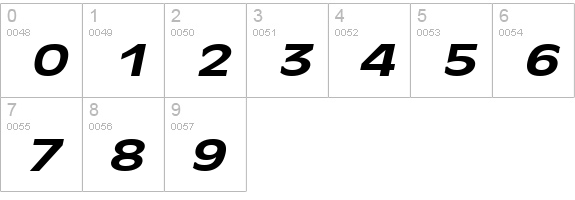
Antiqua 101 Extended BoldItalic is a distinctive, extended-width variant in the Antiqua typeface family \xE2\x80\x94 well suited to design and typography projects.
Antiqua 101 Extended BoldItalic is a striking and elegant font that exudes sophistication and style. With its bold yet graceful curves and beautifully slanted italics, this typeface is perfect for making a statement in any design project. Whether you're creating a modern logo, eye-catching poster, or sleek website, Antiqua 101 Extended BoldItalic is sure to impress. The best part? This exquisite font is available for free download at FontsMarket.com. You can easily enhance your designs with this versatile typeface without breaking the bank. Don't miss out on the opportunity to add Antiqua 101 Extended BoldItalic to your font collection today and take your creative projects to the next level.